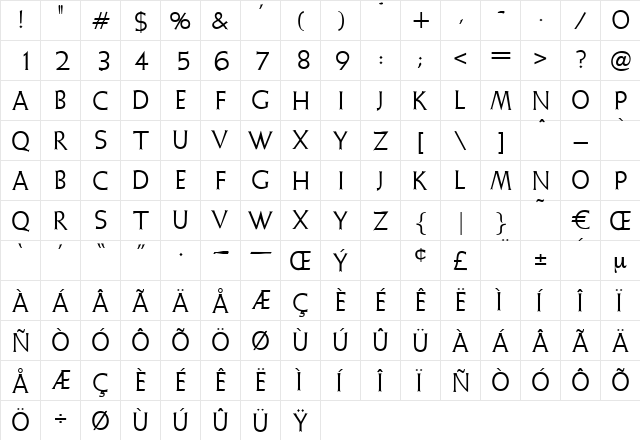
LangerInitialien Regular
Design Context for LangerInitialien Typeface
LangerInitialien is a composed and adaptable typeface that performs quietly and consistently across a wide range of design contexts.